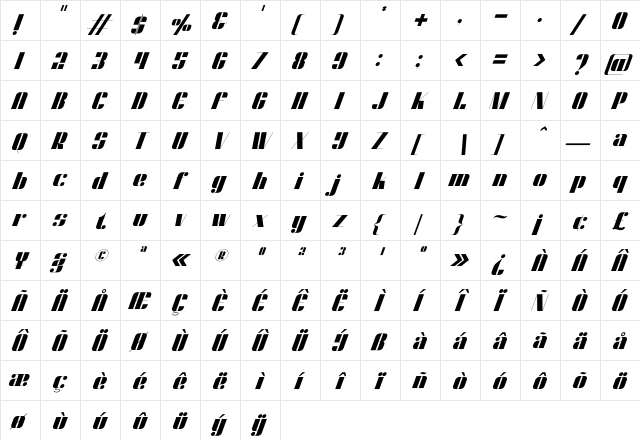
Dunford moore Italic Font Preview
Dunford moore Italic
Dunford moore Italic Font Details
Design Context for Dunford moore Typeface
Dunford moore takes a measured approach to typography — its balanced proportions and neutral character make it a reliable workhorse for both digital and print work. The dynamic lean of this cut emphasises speed and emphasis in any layout.
Pro Tip: Use Dunford moore for emphasis, pull quotes, and subheadings where its slanted energy can add rhythm to the layout.